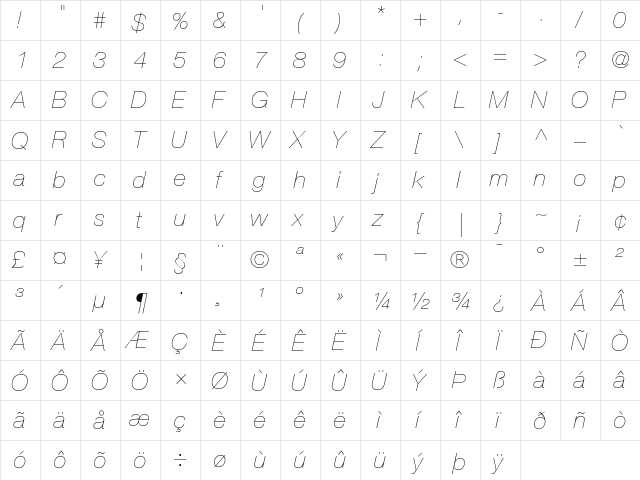
Helvetica26-UltraLight Ultra LightItalic Font Preview
Design Context for Helvetica26-UltraLight Typeface
Helvetica26-UltraLight takes a measured approach to typography — its balanced proportions and neutral character make it a reliable workhorse for both digital and print work. The dynamic lean of this cut emphasises speed and emphasis in any layout. Its slender proportions lend an understated elegance to any composition.
Pro Tip: Use Helvetica26-UltraLight for emphasis, pull quotes, and subheadings where its slanted energy can add rhythm to the layout.